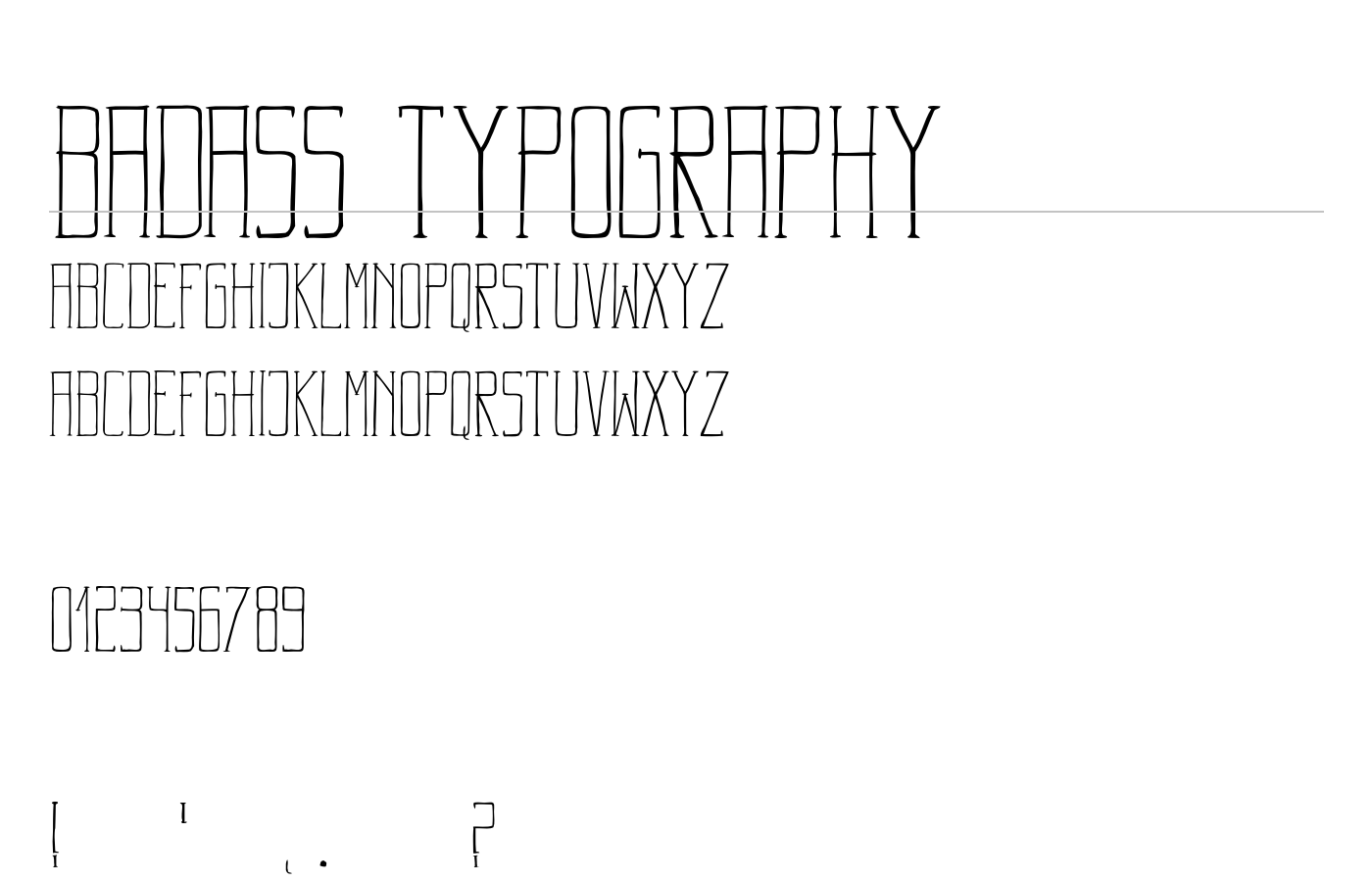
Badass Typography Font is a narrow, tall sans serif typeface with a distinctively thin and linear stroke style that gives it an edgy, modern, and slightly quirky personality. Its minimalist letterforms and consistent stroke weight make it ideal for eye-catching headlines, branding, and editorial designs that seek a unique, avant-garde look. This font works especially well where a bold statement is needed without heavy weight, lending a stylish and contemporary vibe to fashion, tech, or creative projects.
Badass Typography Font
About Badass Typography Font
| Font family | Badass Typography Font |
| Designer | Robin Röcker |